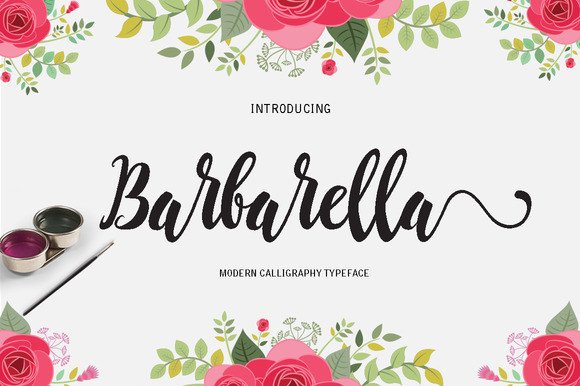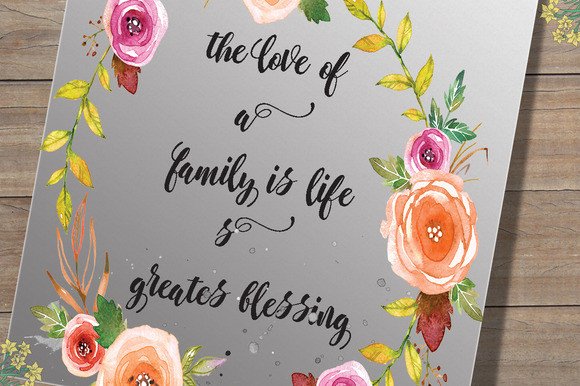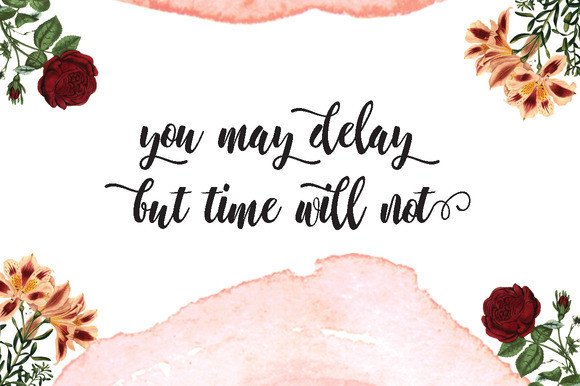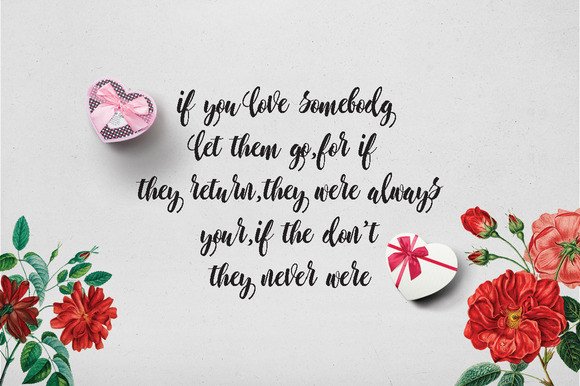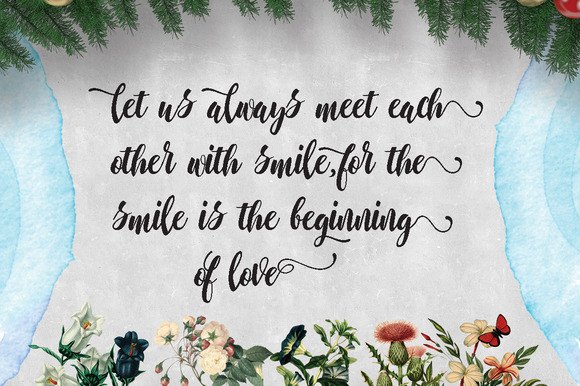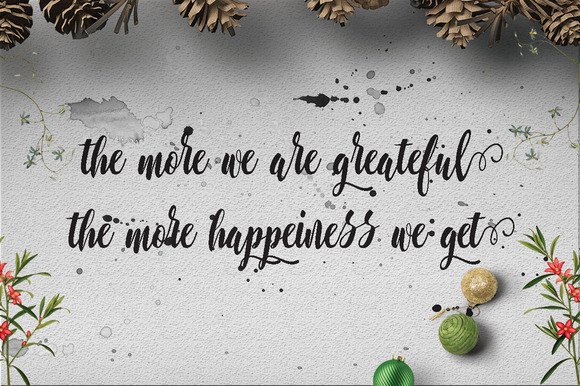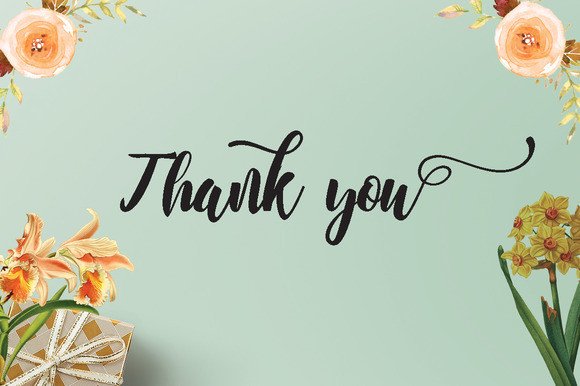
Barbarella Font
About Barbarella Font
Barbarella is a gorgeous inky script font, perfect for giving your designs an added charm and handwritten feel.  Barbarella reads well and looks at home in floral and romantic creative projects.